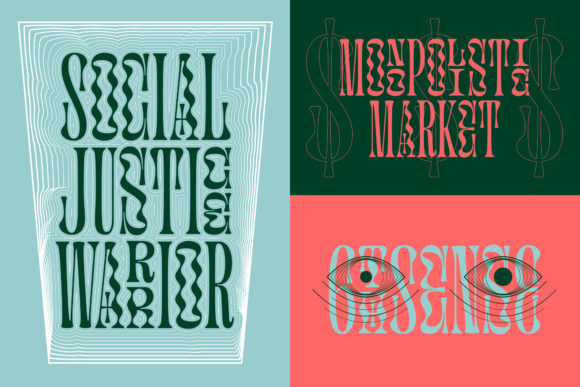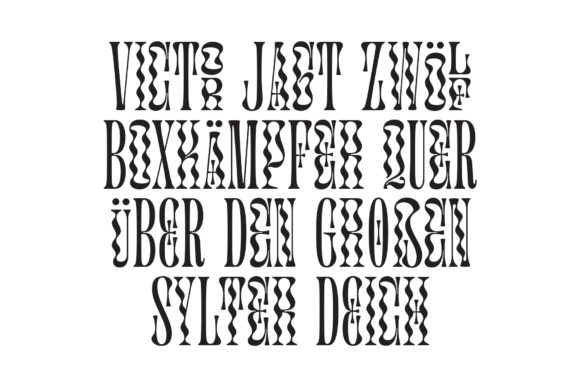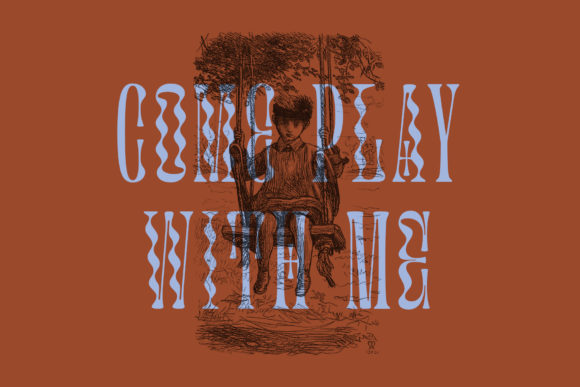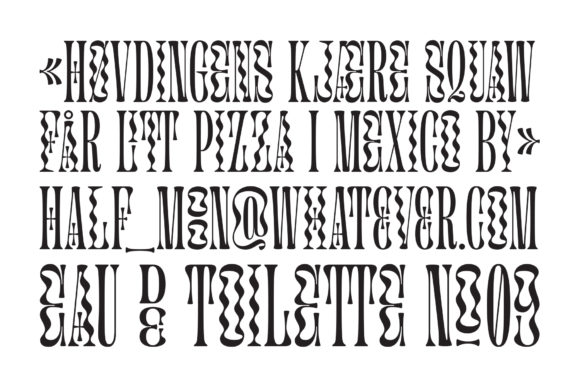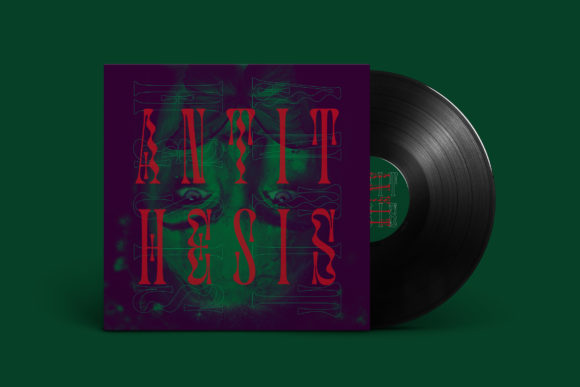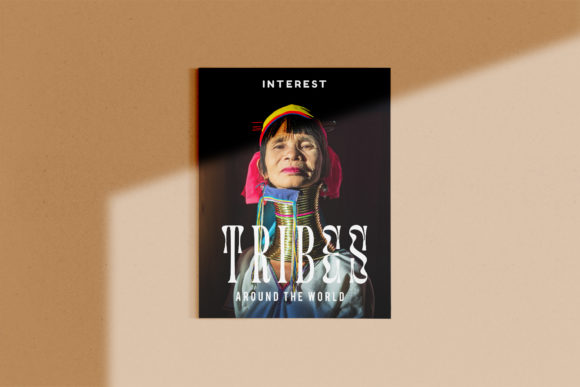
Introducing Glassure Font: A Unique Blend of Art Nouveau, Vintage, and Glass Sculpture Inspiration
Are you a designer or crafter looking for a typeface that combines the elegance of art nouveau and vintage styles with the uniqueness of glass sculptures? Look no further than Glassure Font. This experimental typeface is inspired by the intricate pulls and curls of glass sculpture-making, as well as the beautiful marble patterns that result from the process. The result is a font that is both weird and wonderful, perfect for adding a touch of sophistication and individuality to your designs.
The Inspiration Behind Glassure Font
Glassure Font is the brainchild of a designer who sought to capture the essence of glass sculpture-making in a typeface. The process of creating glass sculptures involves heating, shaping, and cooling glass to create intricate and delicate forms. The resulting marble patterns, with their swirling colors and textures, are a testament to the beauty of this craft. Glassure Font takes these patterns and translates them into a unique and captivating typeface.
In addition to the glass sculpture inspiration, Glassure Font also draws from the art nouveau and vintage styles. Characterized by sinuous lines, flowing curves, and a sense of organic elegance, art nouveau is a perfect complement to the fluid, molten quality of glass. By combining these styles with the experimental edge of glass sculpture-making, Glassure Font achieves a truly one-of-a-kind look.
Key Features of Glassure Font
Glassure Font is more than just a beautiful typeface – it also boasts some exciting features that set it apart from other fonts. Here are a few highlights:
- Uppercase, Lowercase, and More: Glassure Font includes a full range of uppercase and lowercase letters, as well as numbers and special characters. This allows you to mix and match to create the perfect look for your design.
- Titling Alternates: One of the most unique features of Glassure Font is its ‘titling alternates’ feature. By selecting an even number of letters and activating this feature in your software, you can create stunning two-letter blocks that add an extra layer of visual interest to your design.
Using Glassure Font in Your Designs
So how can you use Glassure Font in your designs? The possibilities are endless! Here are a few ideas to get you started:
- Logos and Branding: Glassure Font’s unique blend of elegance and quirkiness makes it perfect for logos and branding projects. Use it to add a touch of sophistication and whimsy to your brand identity.
- Posters and Flyers: Create eye-catching posters and flyers with Glassure Font’s bold, eye-catching lettering. Perfect for advertising, promotions, or events.
- Packaging and Product Design: Add a touch of art nouveau flair to your packaging and product design with Glassure Font. Ideal for luxury brands, craft products, or gourmet foods.
Tips and Tricks for Getting the Most Out of Glassure Font
To really make Glassure Font shine in your designs, here are a few tips and tricks to keep in mind:
- Experiment with Color: Glassure Font’s marble-inspired patterns look amazing in bold, bright colors. Don’t be afraid to experiment with different color combinations to find the perfect look for your design.
- Play with Texture: Add an extra layer of depth to your design by combining Glassure Font with different textures and patterns. Think glass, marble, or wood.
- Vary Your Line Height: To create a more dynamic look, try varying your line height when using Glassure Font. This will add visual interest and help your text stand out.
In conclusion, Glassure Font is a one-of-a-kind typeface that combines the beauty of glass sculpture-making with the elegance of art nouveau and vintage styles. With its unique features, bold lettering, and endless possibilities for customization, Glassure Font is the perfect choice for designers and crafters looking to add a touch of sophistication and whimsy to their designs.